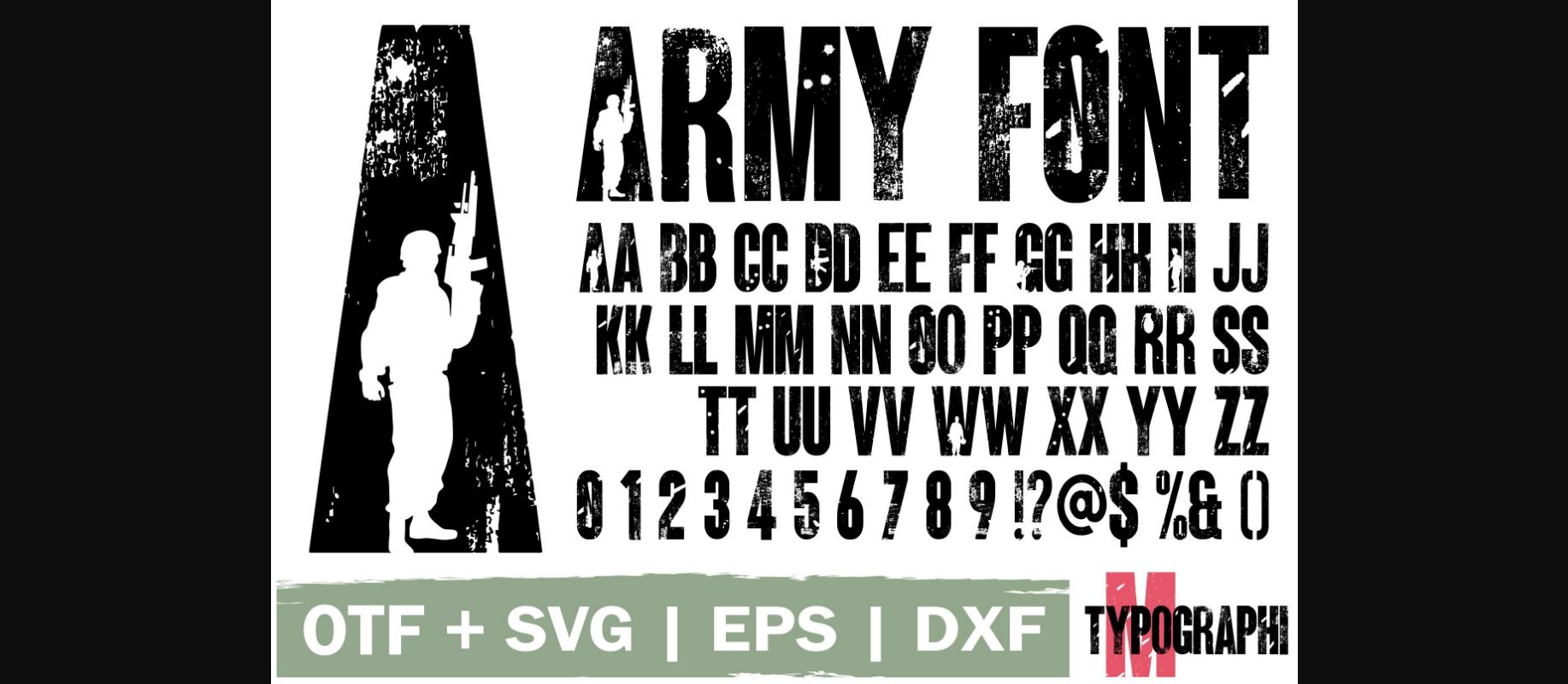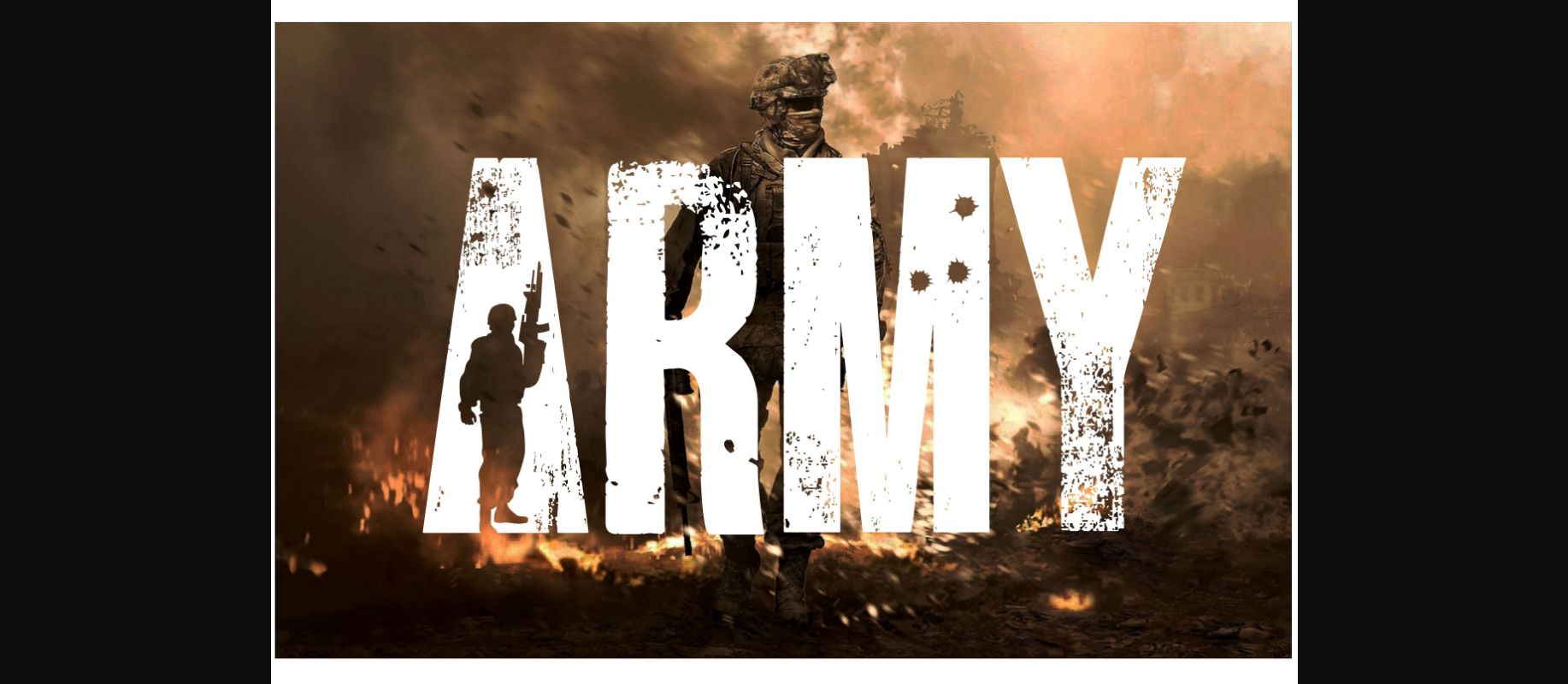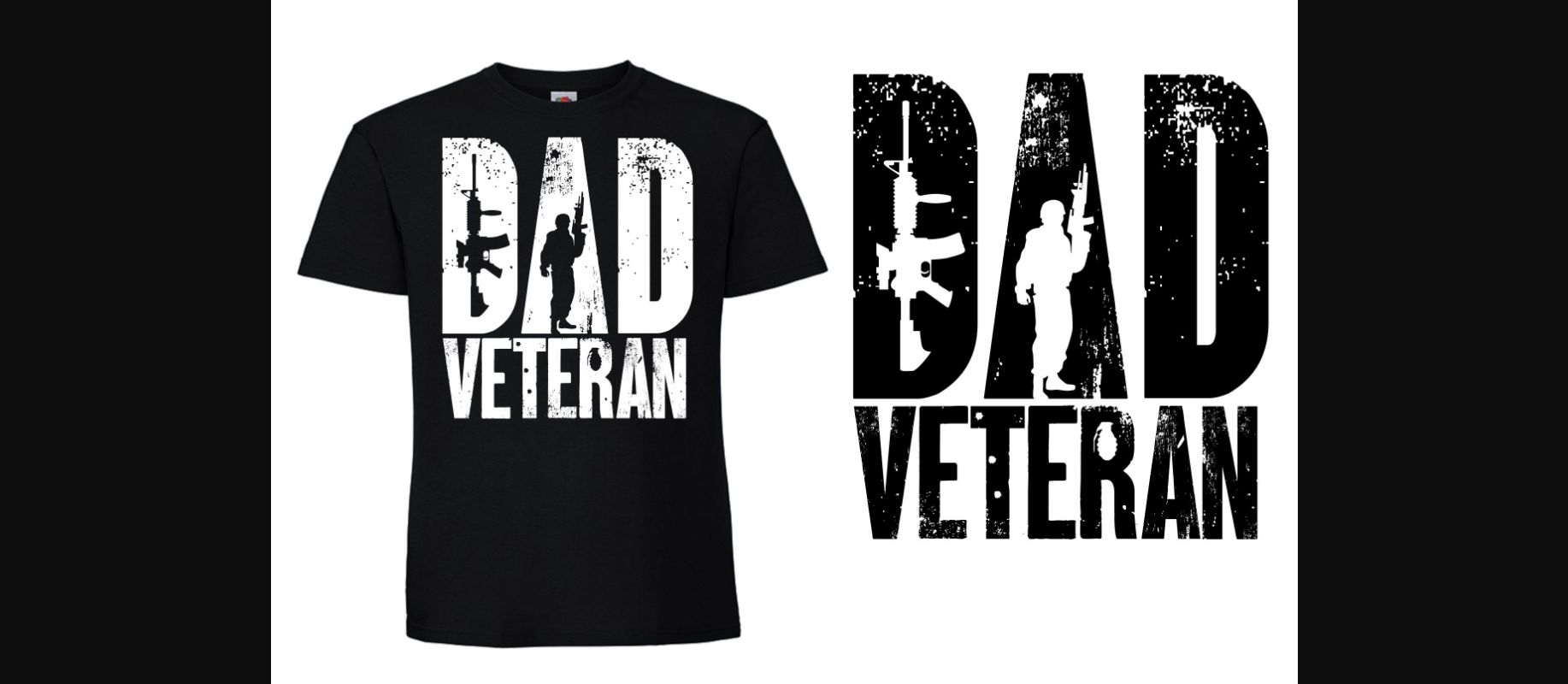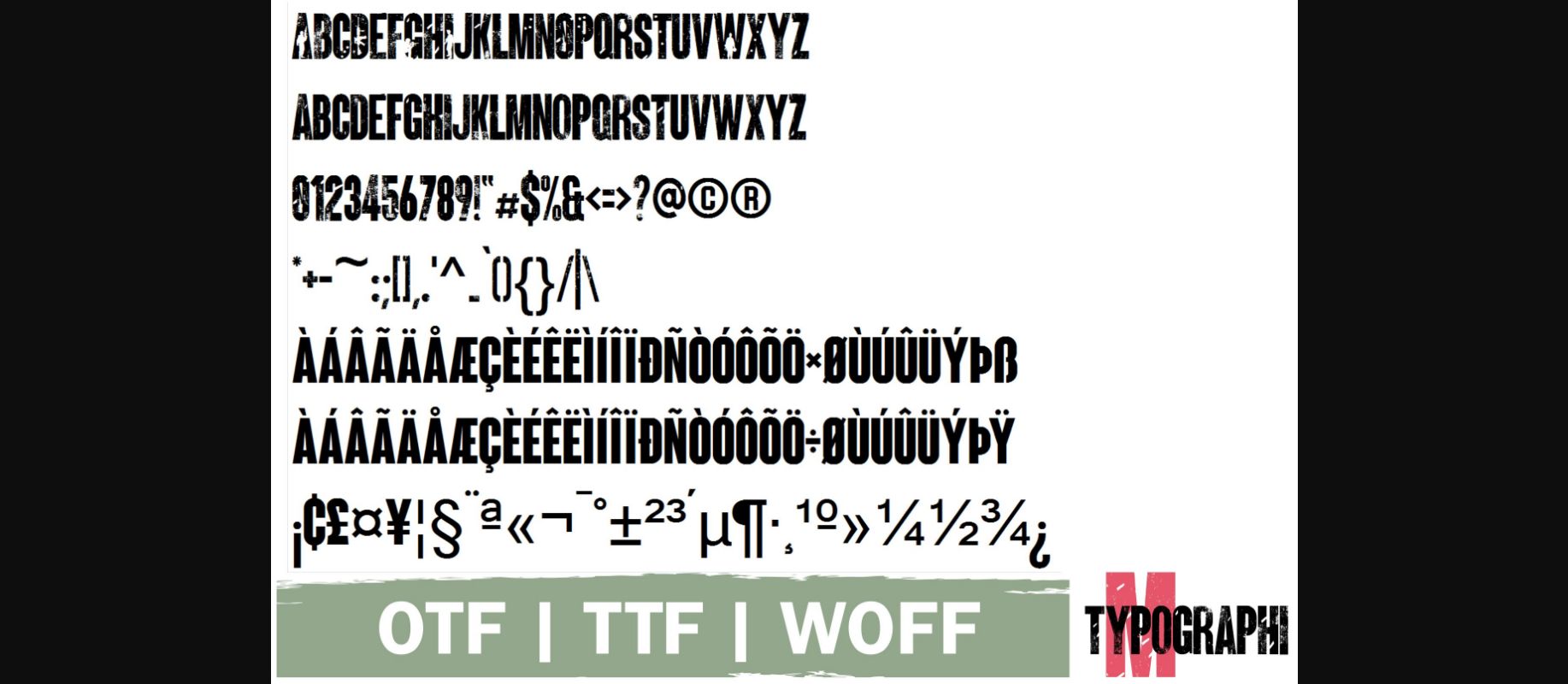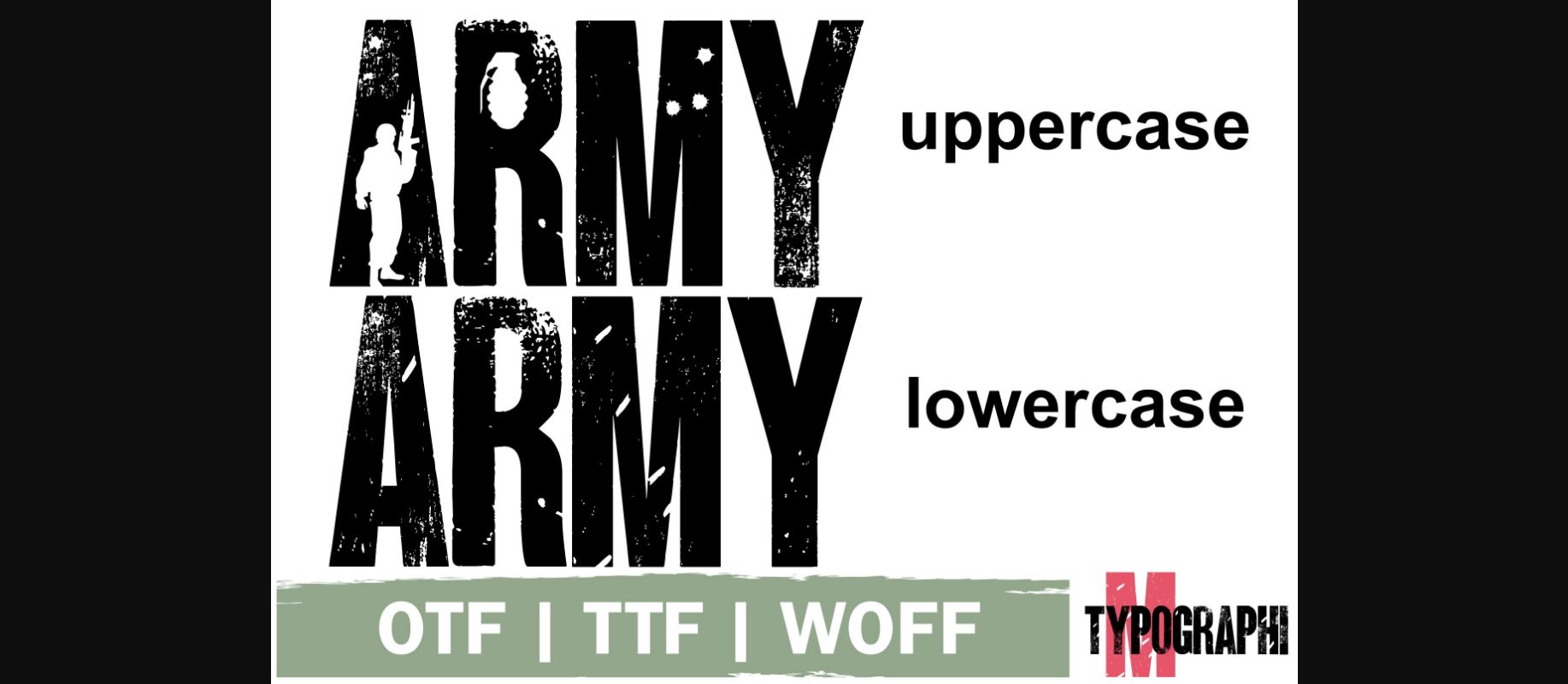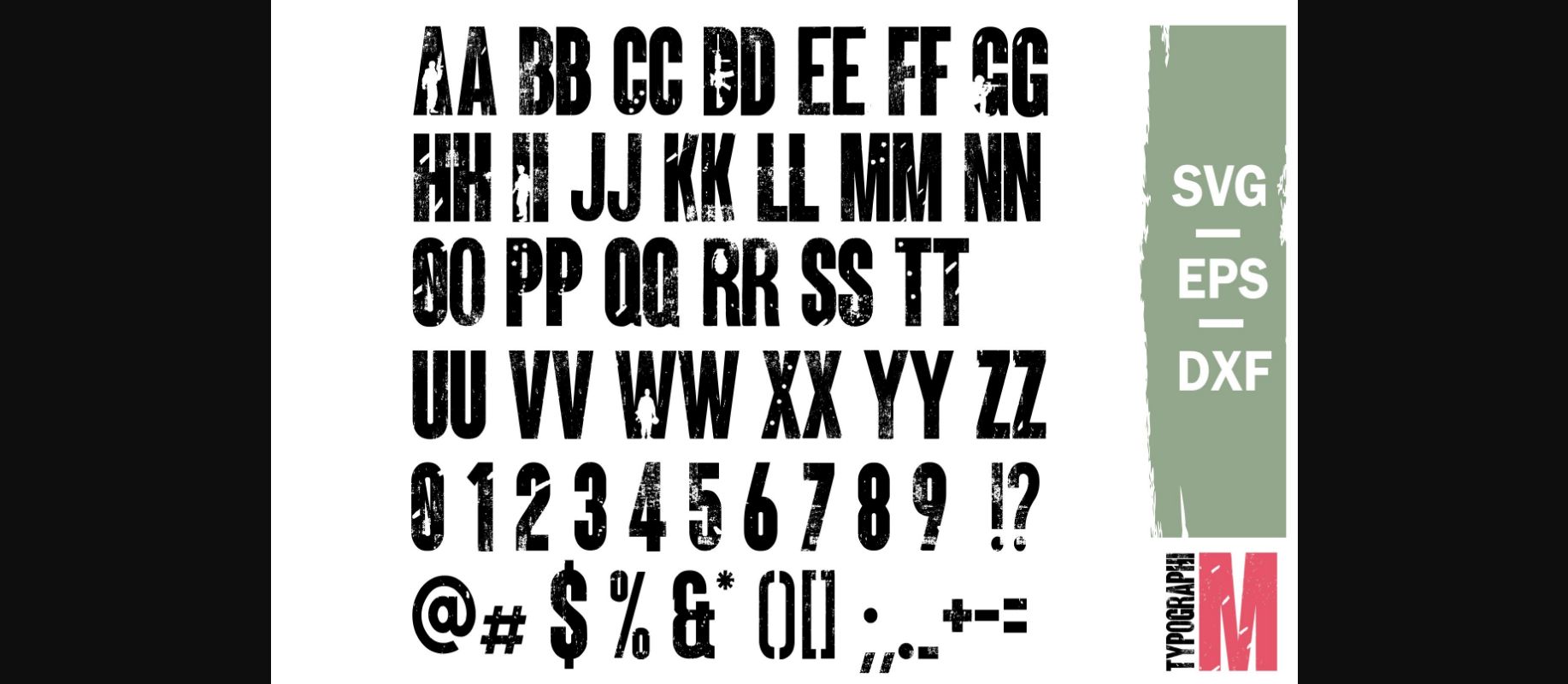
HomeDecorative FontsArmy Font Decorative Fonts Army Font FacebookXPinterestWhatsApp 1 of 9 ... Army Font Poster 2... Army Font Poster 3... Army Font Poster 4... Army Font Poster 5... Army Font Poster 6... Army Font Poster 7... Army Font Poster 8... Army Font Poster 9... About Army Font Army is a raw and rough decorative font with a grungy and used look. It will look great on any military and soldier-themed project! DOWNLOAD NOW People also explored Christmas Day out Font Avocado Font Hungry Beauty Font Mytchell Trujillo Font Anastacia Font Baigon Font Judge Font Rossie Bella Font Quality Times Font 373 0 TagsArmyArmy Font Previous articleBasketball FontNext articleCollege Grunge Font LEAVE A REPLY Cancel reply Comment: Please enter your comment! Name:* Please enter your name here Email:* You have entered an incorrect email address! Please enter your email address here Website: Save my name, email, and website in this browser for the next time I comment. Personal Use Free Fifteenth Century Personal Use Free Read more about this font The Bocah Personal Use Free Read more about this font Bukhari Script Personal Use Free Read more about this font Sunshine Tropical Font Personal Use Free Read more about this font BLOG 5 Fonts That Will Dominate Design Trends in 2026 5 Fonts for 2026 That Will Dominate Design Trends Typography plays a critical role in visual communication, and as we look ahead to 2026, it’s... Best Fonts for YouTube Videos: Make Your Thumbnails Stand Out Elegant Wedding Invitation Fonts – Handwritten & Script Fonts Transform Your Website: Elevate Your Typography with 7 Best Web Font Generators